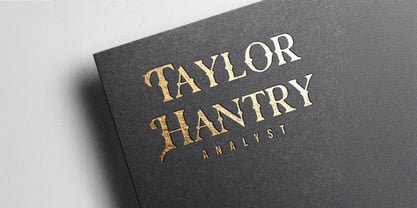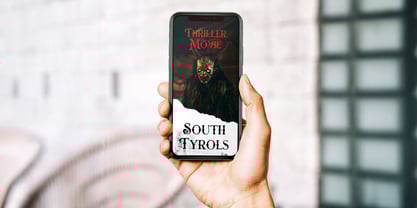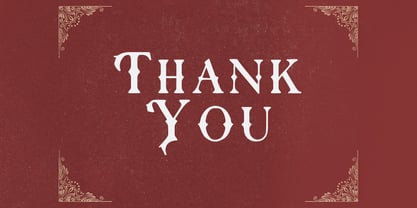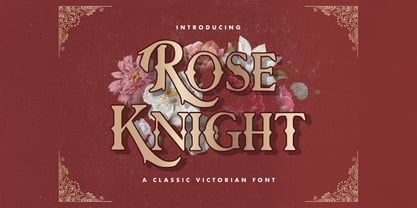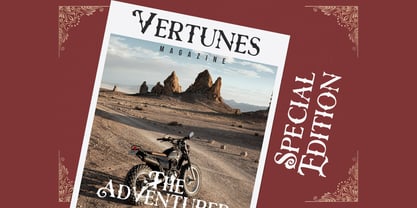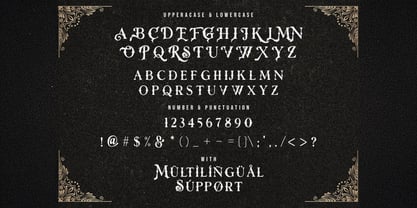
The Rose Knight Font Family was designed by Virgiawan Listanto and published by Stringlabs Creative Studio. Rose Knight contains 1 styles. More about this family
Rose Knight is a bold Victorian style font that blends ornate elegance with a hint of dramatic flair. Inspired by vintage signage and royal typography, it features intricate curves, strong serifs, and a regal presence that commands attention.
Rose Knight